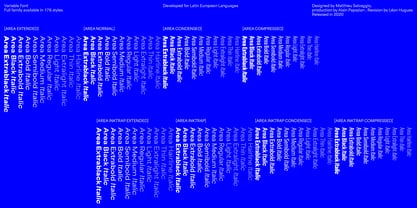
Area™ VF
by Blaze Type
The Area VF Font Family was designed by Matthieu Salvaggio and published by Blaze Type. Area VF contains 1 styles.
Area is a variable geometric font family of 176 fonts that takes inspiration from architecture. Revolving around two width: Normal and Extended, matching italics. Area comes in three axis and six total styles: Compressed, Normal, Extended and Inktrap versions for each and matching italics. Taking full advantage of the variable technology in order to bring a powerful font system. Like any piece of architecture, the design process of Area started with a stable modular geometrical structure. Once the foundations are laid, its envelope slowly unfolds into a more quiet neogrotesque robe, offering a solid base for any reading experience thanks to its smooth grey. Far from being ornamental, Area inktraps have been planned from A to Z to offer the assurance that even in situations that are trickier and require the use of smaller text, everything will remain steady as steel.
Designers: Matthieu Salvaggio
Publisher: Blaze Type
Foundry: Blaze Type
Design Owner: Blaze Type